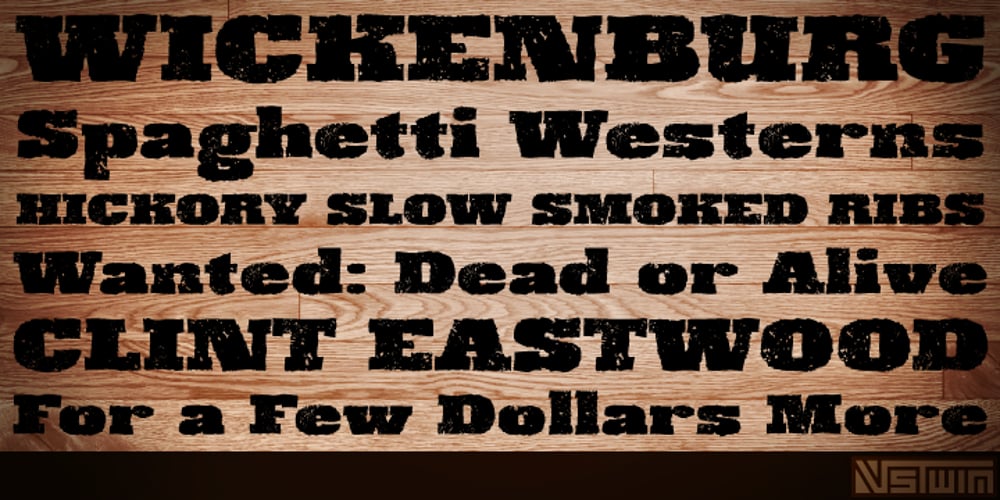
Wickenburg Font Family was designed by Brian J. Bonislawsky, Brian Jaramillo and published by VersusTwin. Wickenburg contains 1 styles and family package options. Wickenburg is a rough and tumble grunge slab typeface that has taken a lickin’ but keeps on coming back for more. It is a powerful heavyweight serif that makes a strong design statement. Pick up this bad boy and take him for a ride!